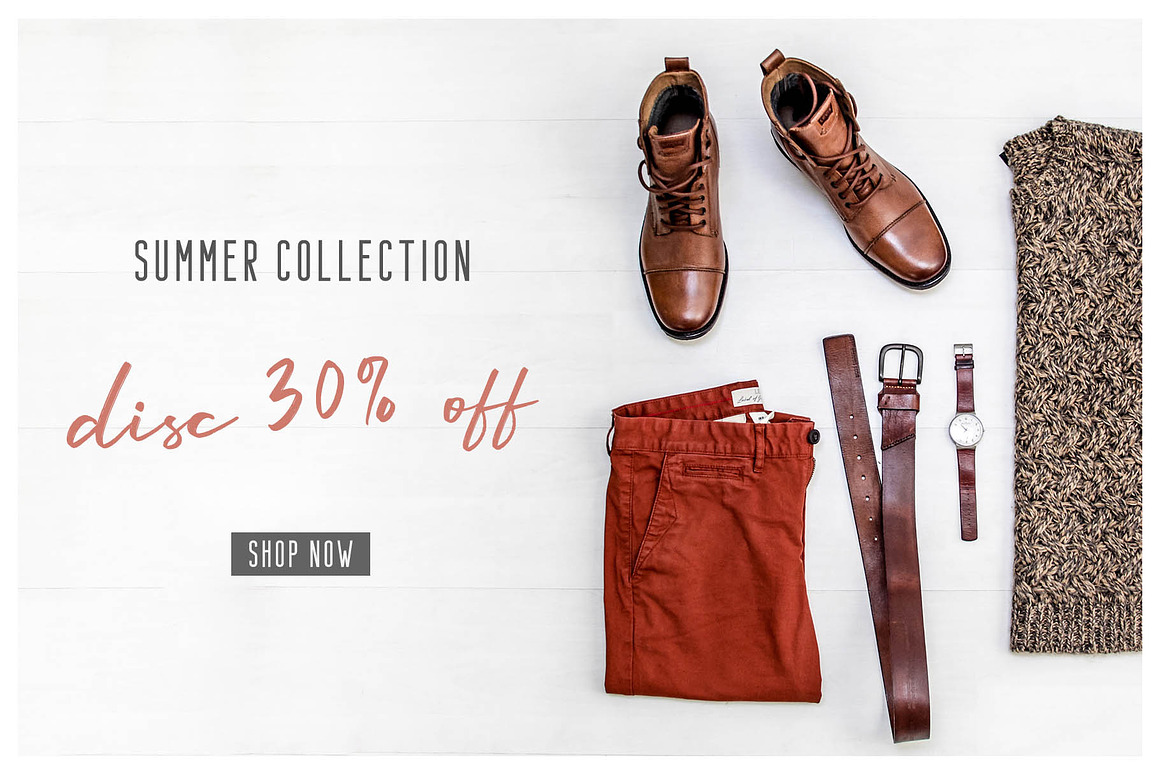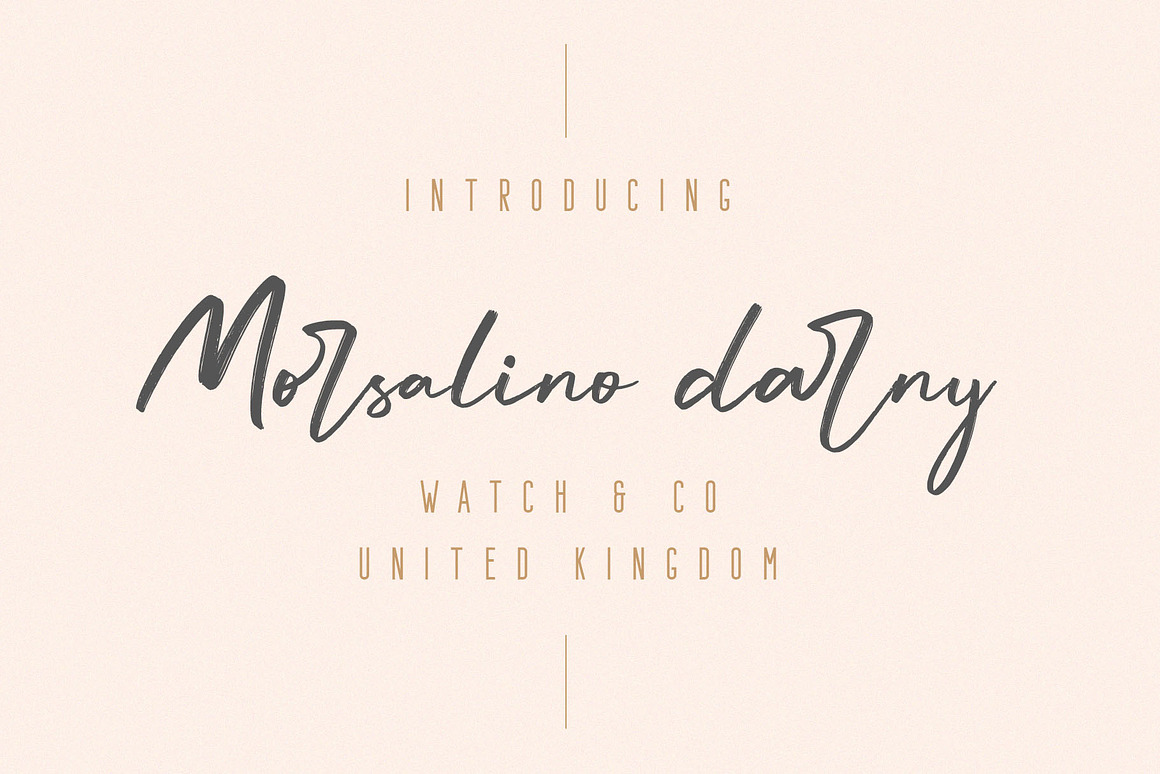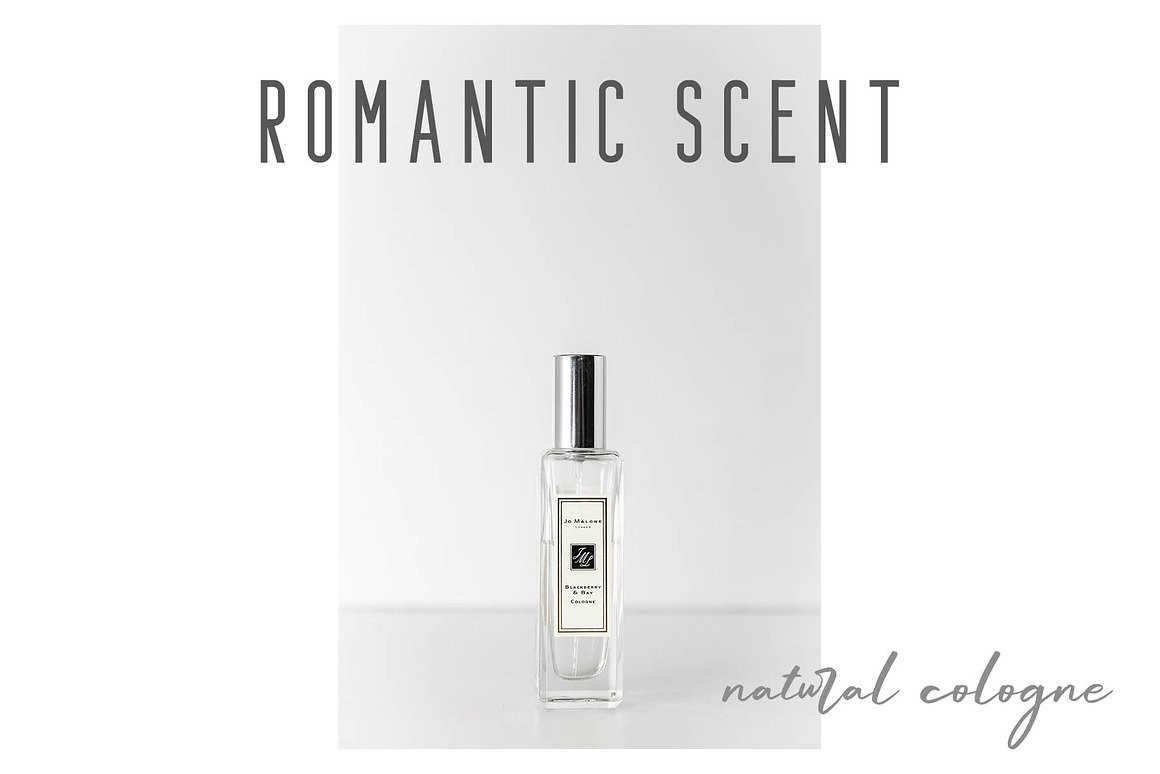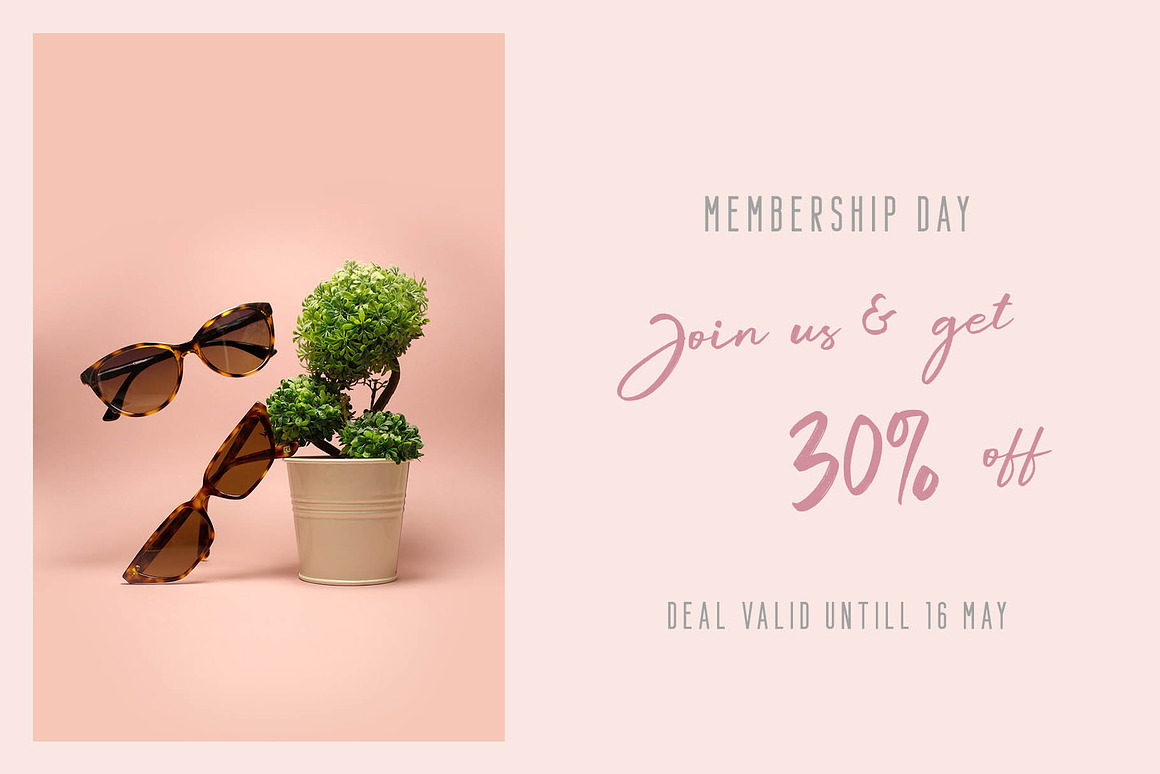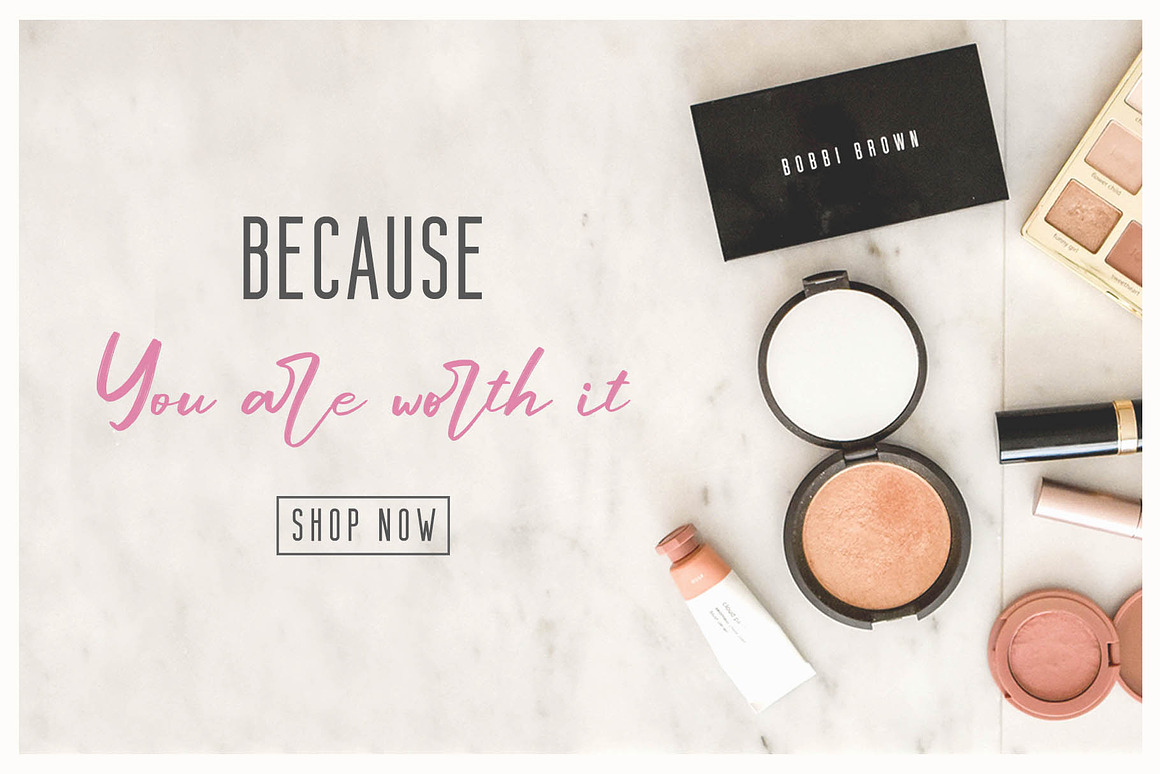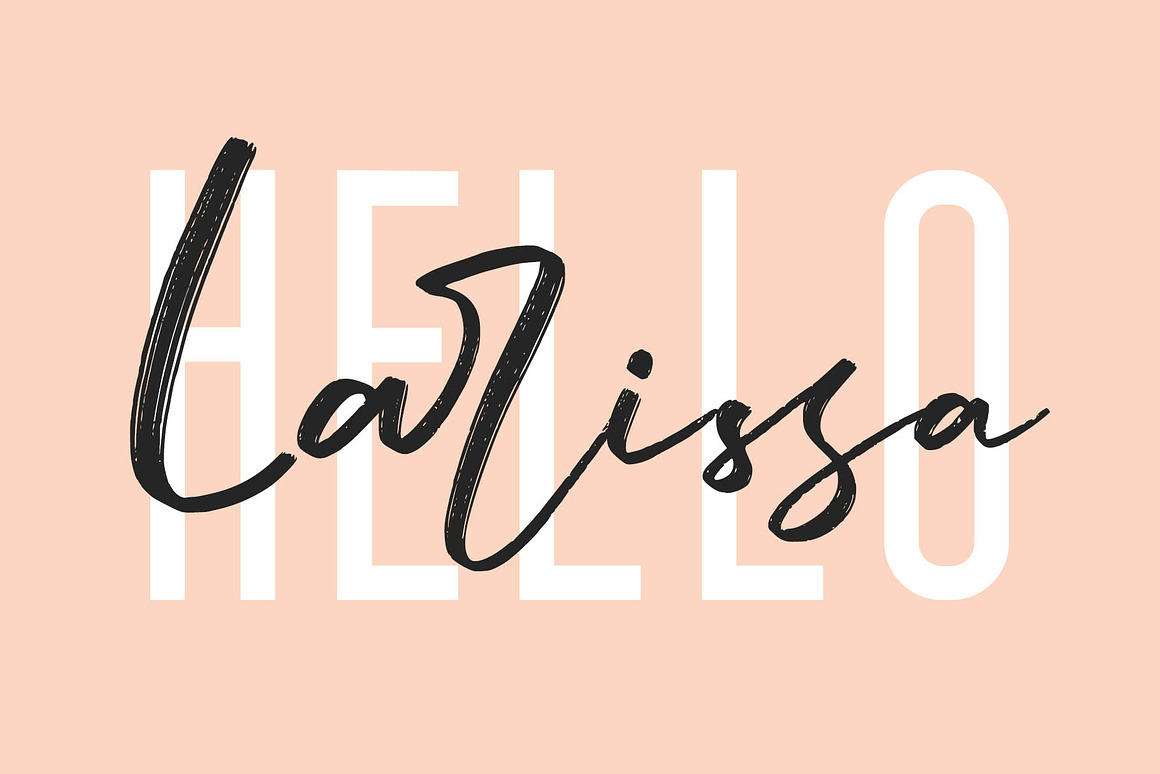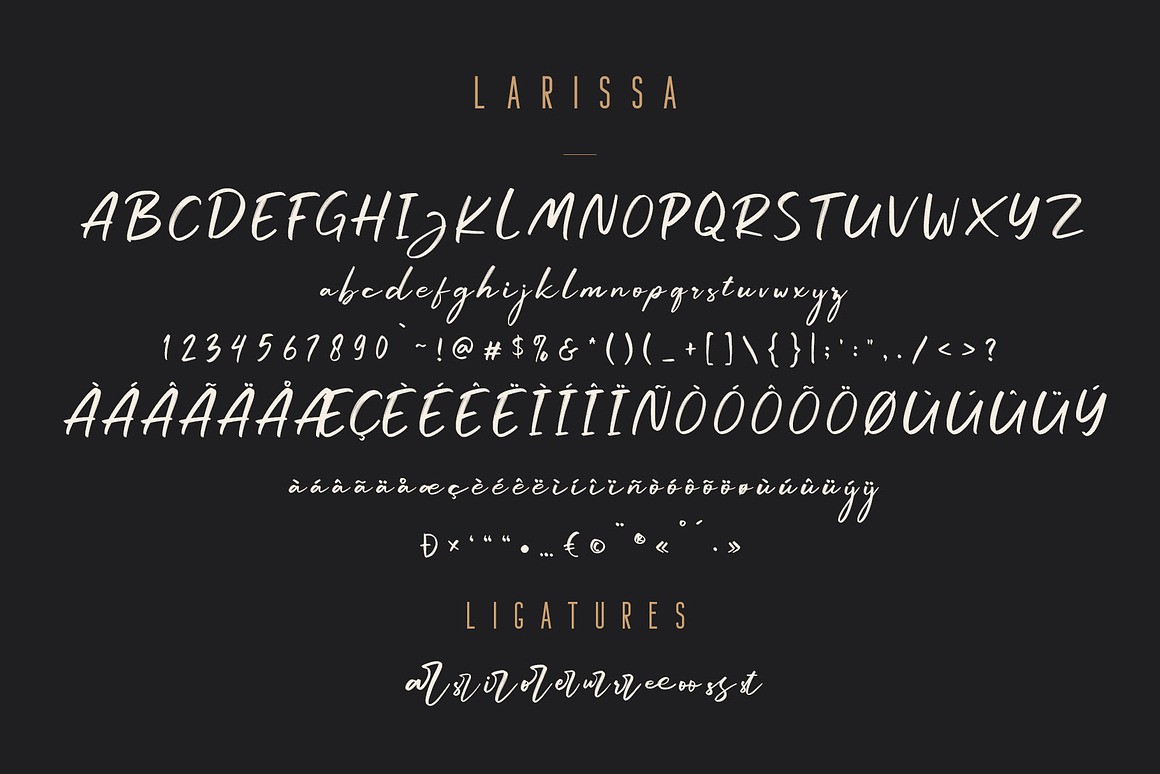
Larissa - Handwritten Font + Bonus
Larissa - Handwritten Font is perfect for wedding invitations, personal branding, greeting cards, lifestyle blogs, and creative social media posts. Its elegant, flowing handwritten style adds a personal and artistic touch to any project.
What makes Larissa - Handwritten Font exciting is its smooth, natural strokes and charming curves, which give text a sense of personality and movement. The font balances style with readability, making it ideal for both creative and professional applications.
The Larissa - Handwritten Font family includes Regular, Bold, Italic, and Swash variations, offering designers flexibility to create unique, eye-catching compositions and decorative accents.
For designers seeking a beautiful, handwritten typeface that brings elegance and charm to their work, Larissa - Handwritten Font Free Download is a must-have addition to any creative toolkit.